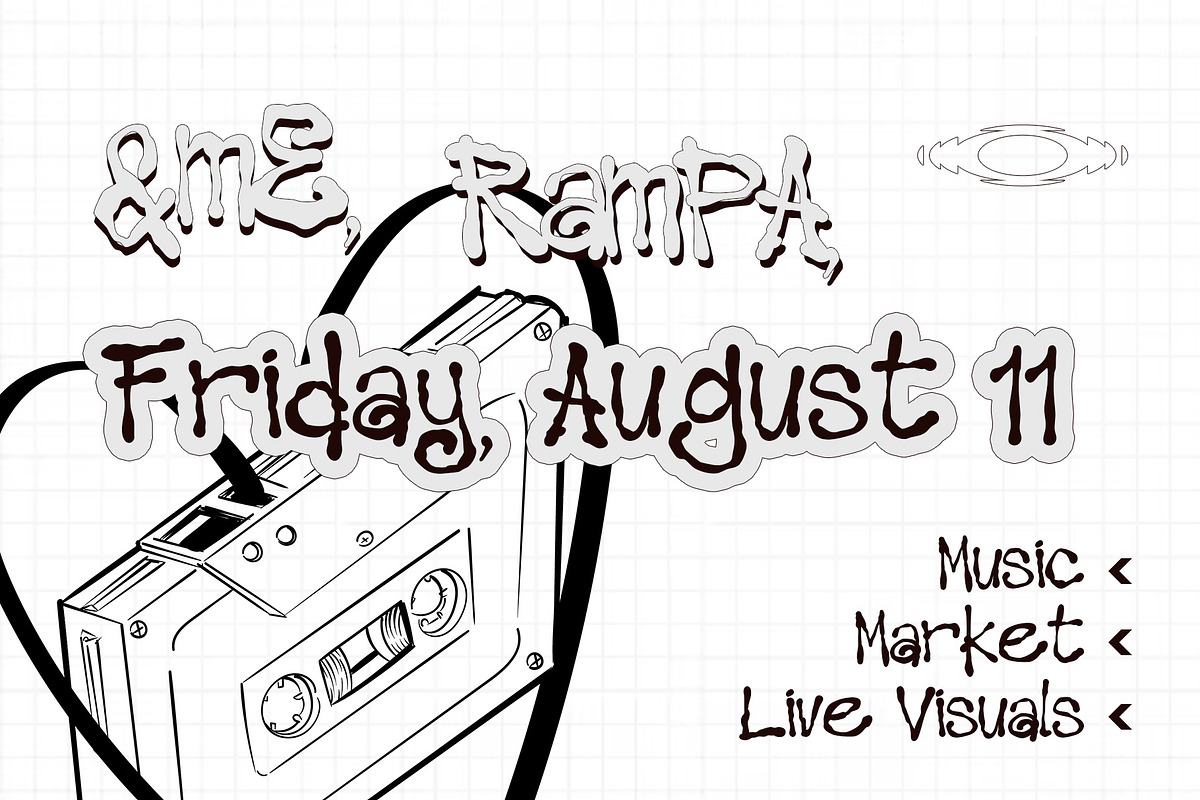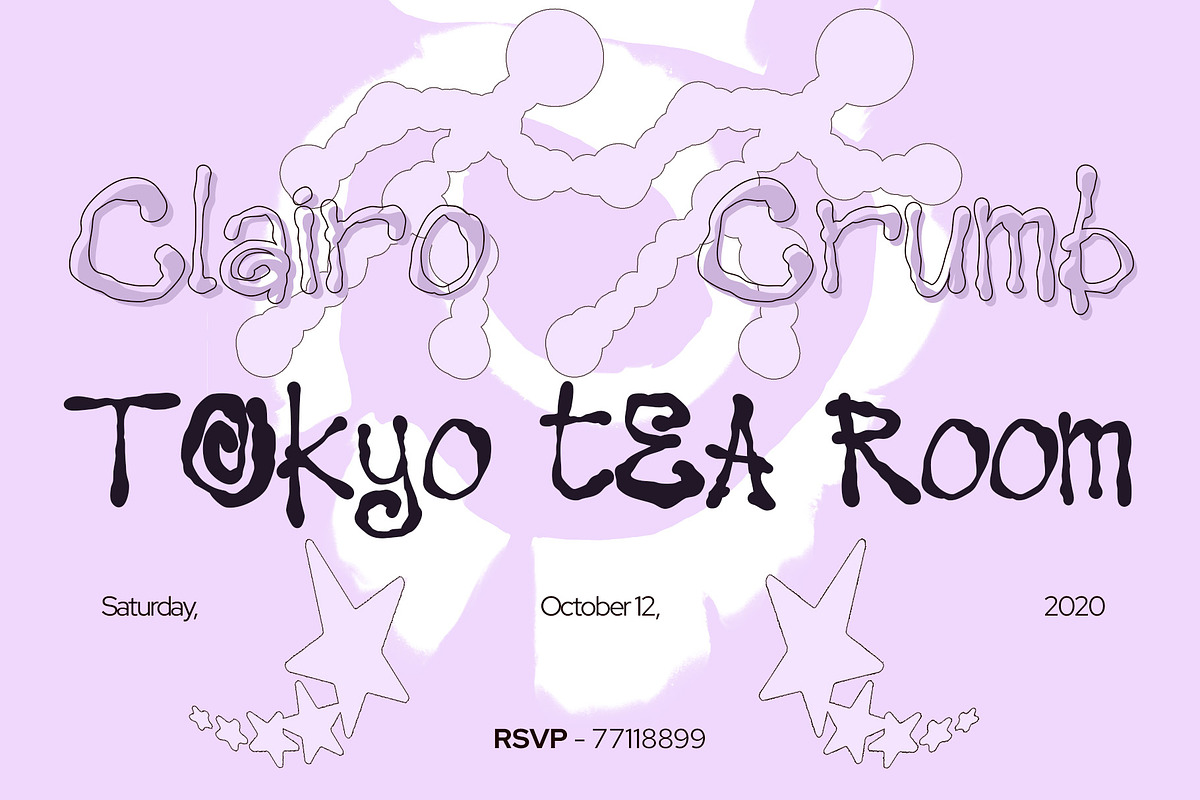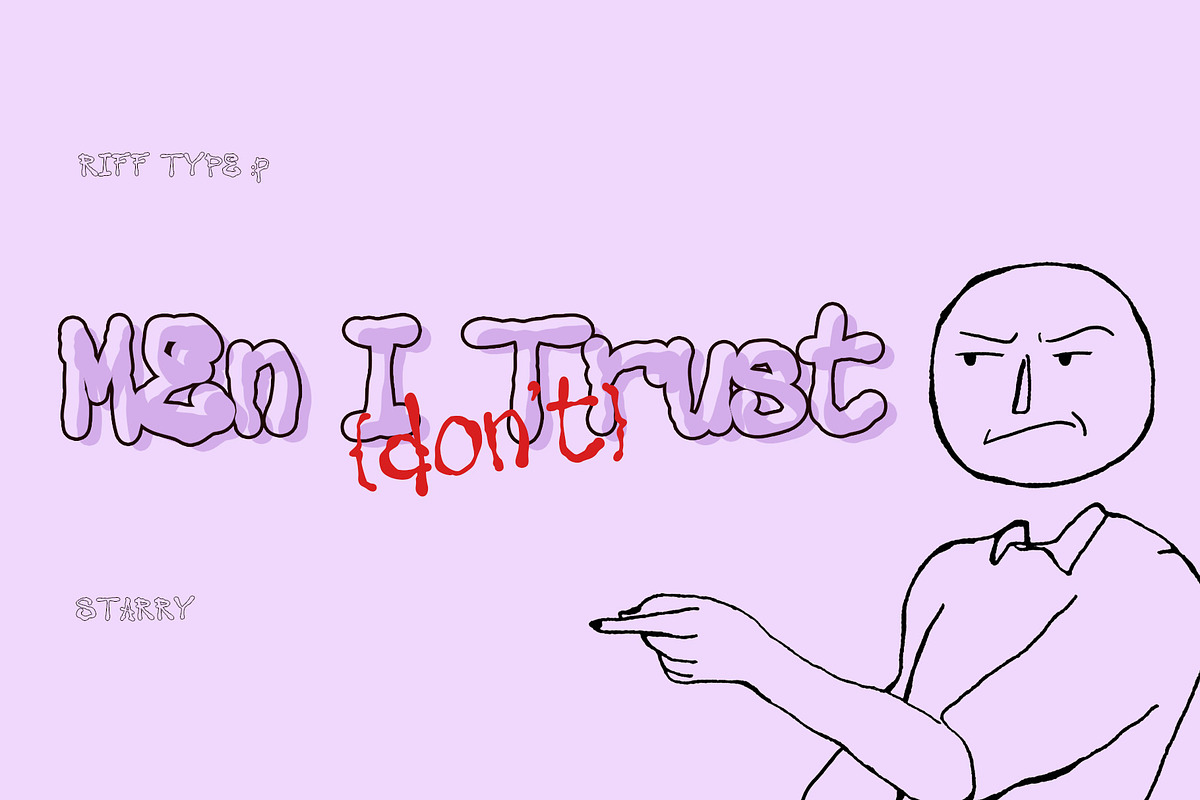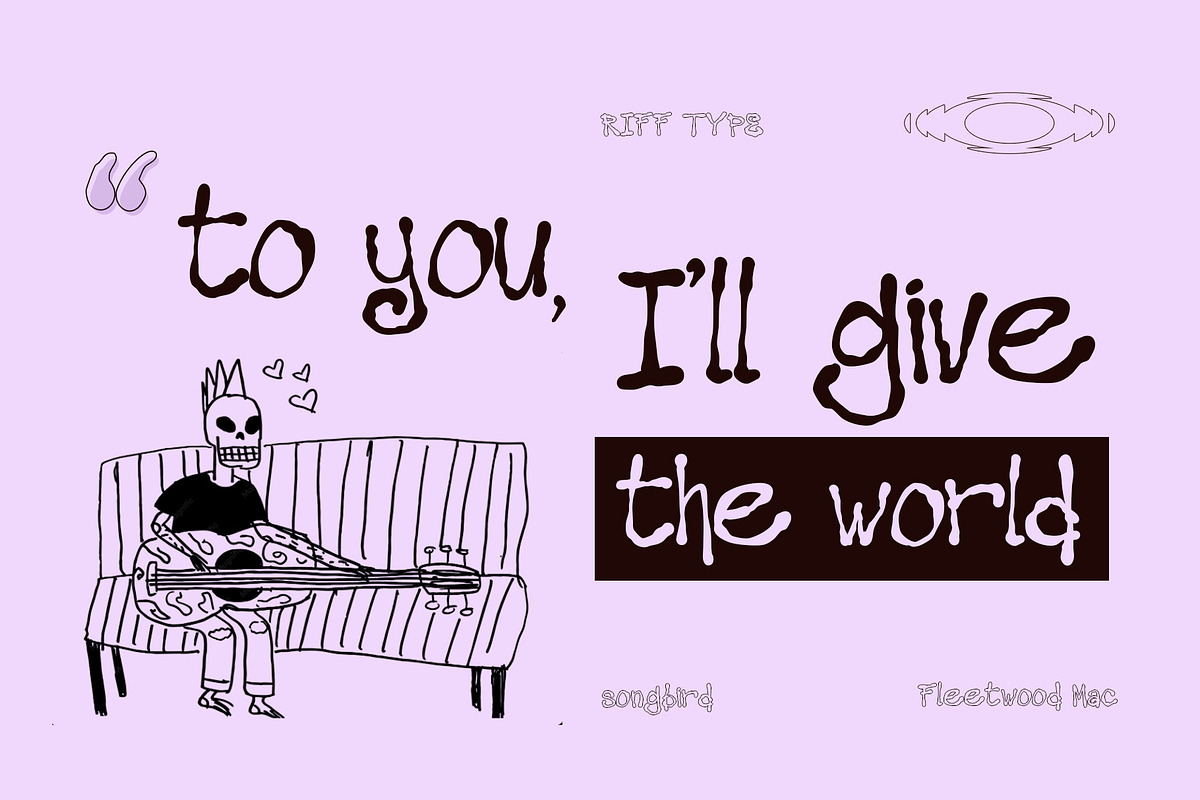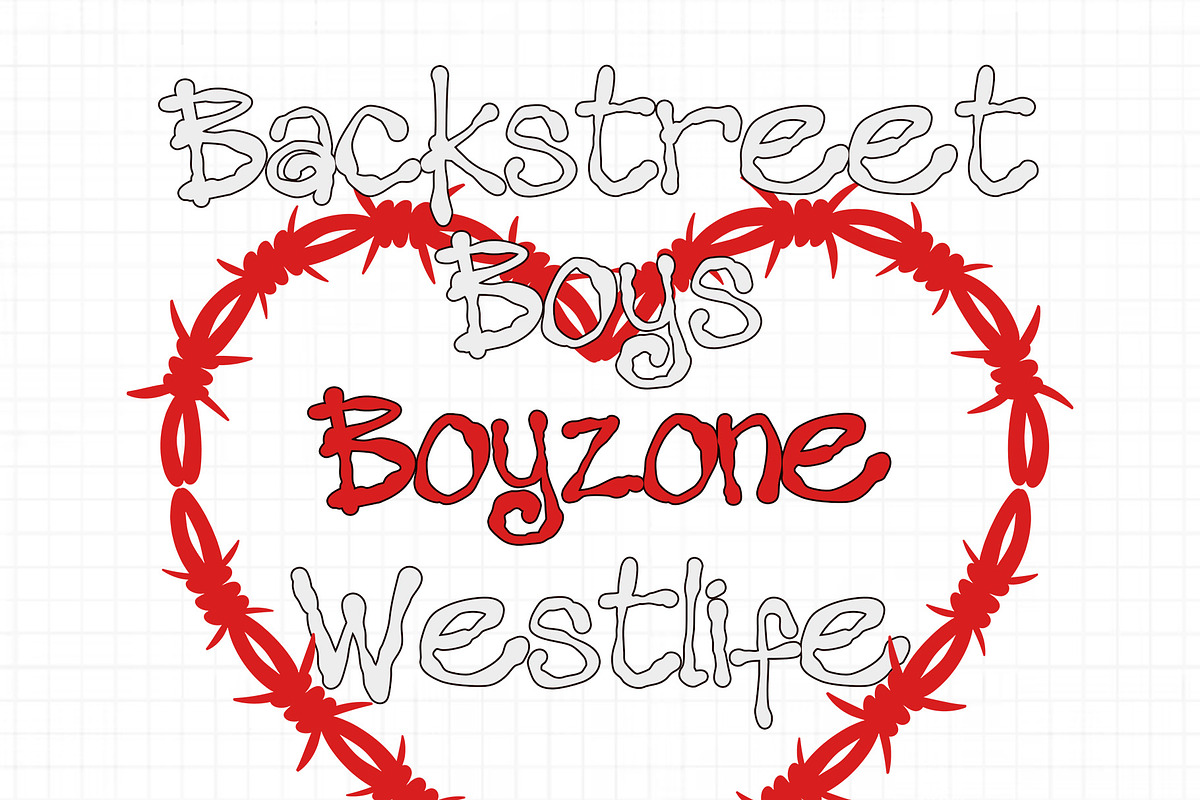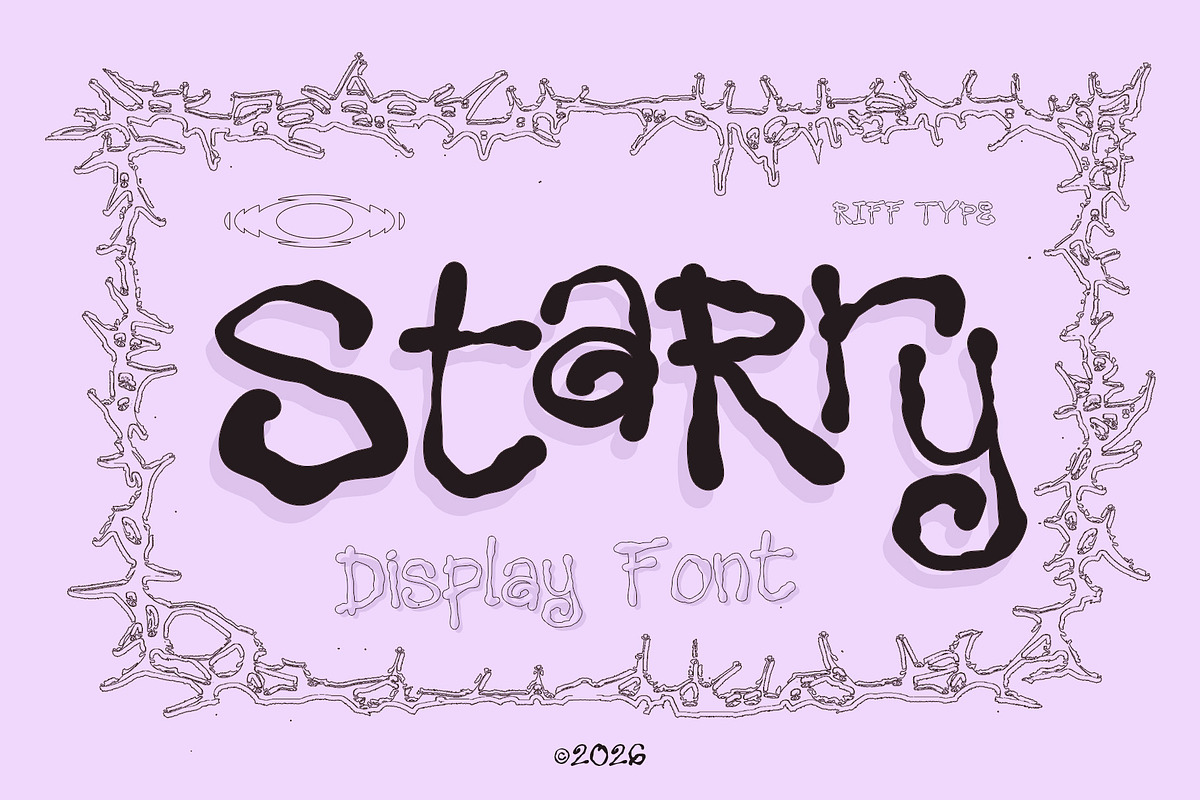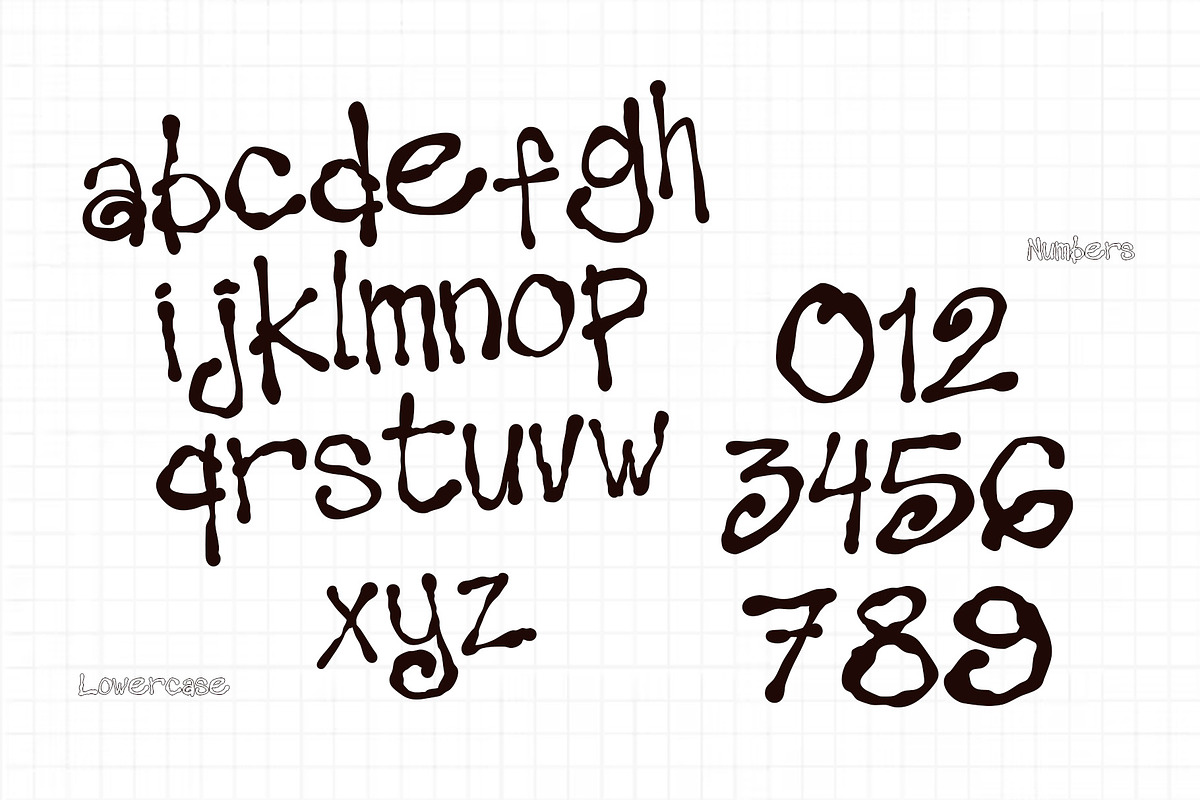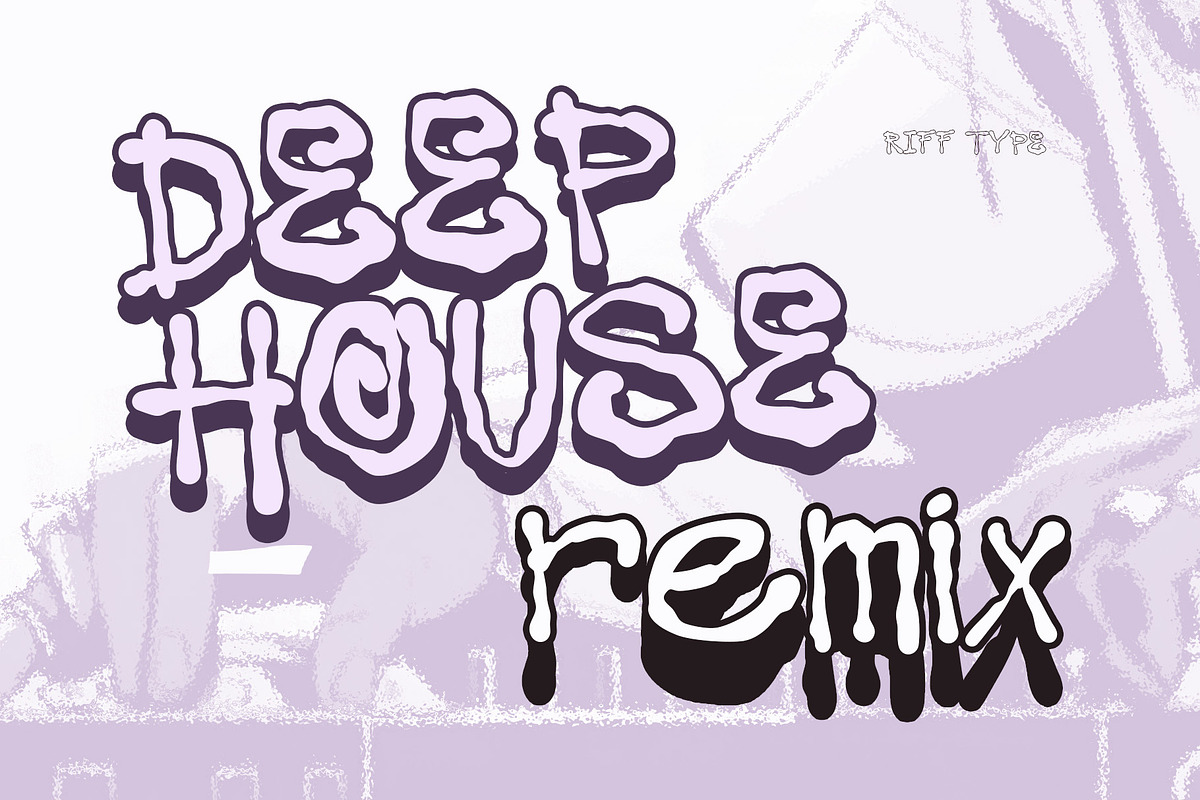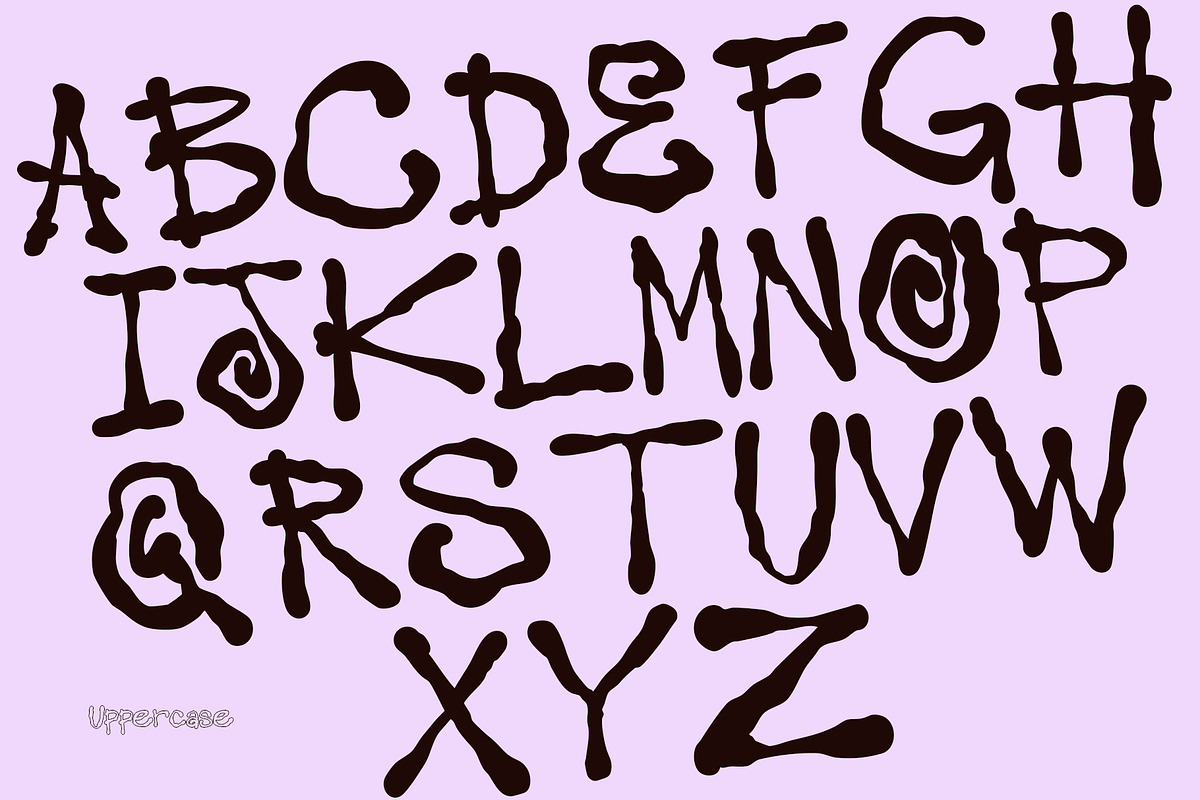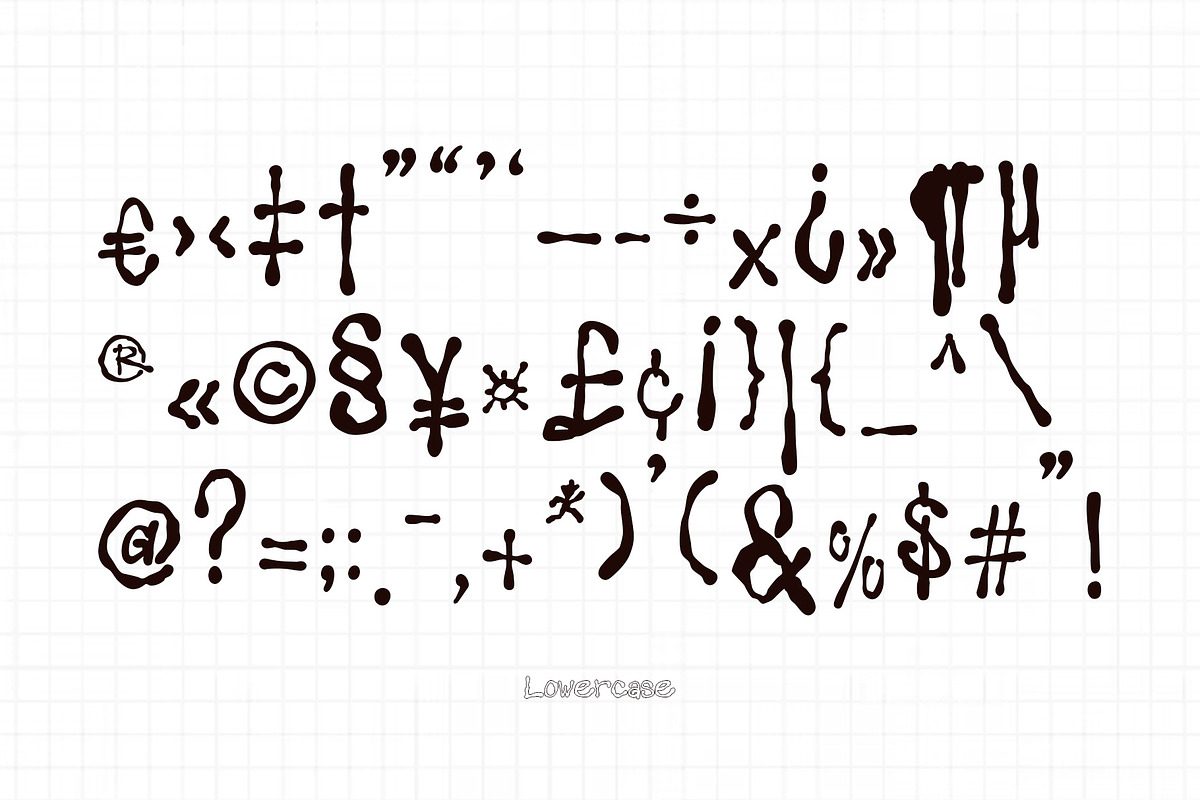
Starry - Dream Pop Display Ink
Starry is an organic, hand-drawn display font born at the intersection of heavy, raw ink textures and the hazy, nostalgic world of bedroom pop and neo-psychedelia.
Starry also feels intimately personal, honest, and delightfully imperfect. It breaks away from rigid digital design to bring a genuine, tactile, DIY zine aesthetic to your creative projects.